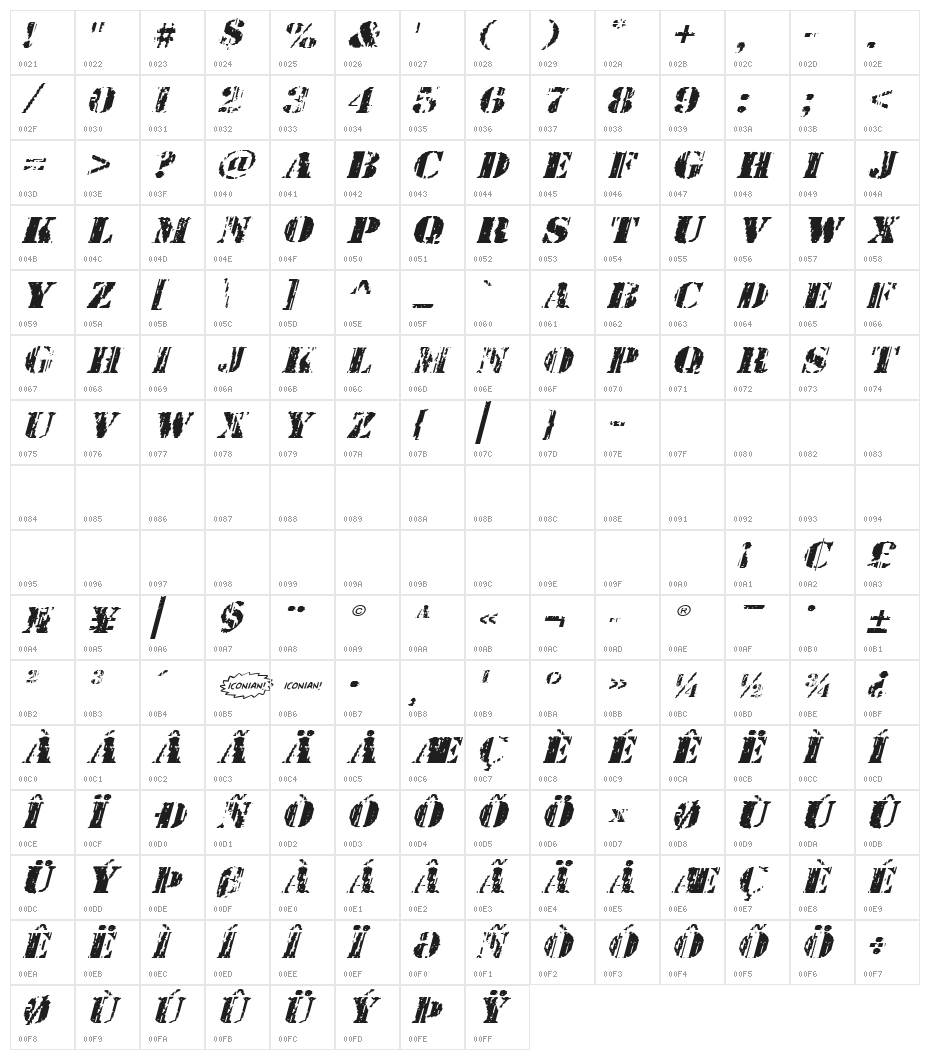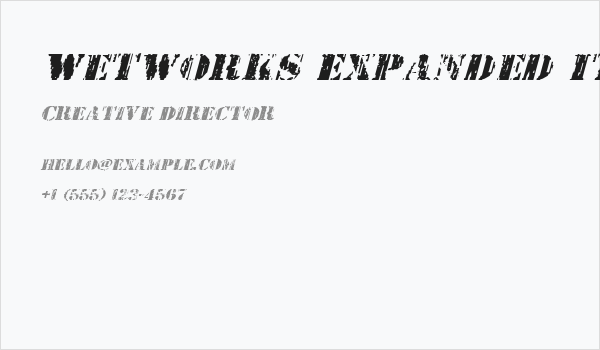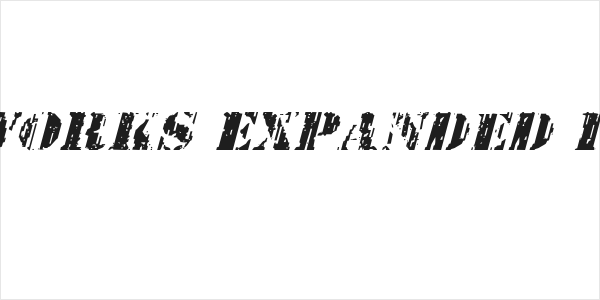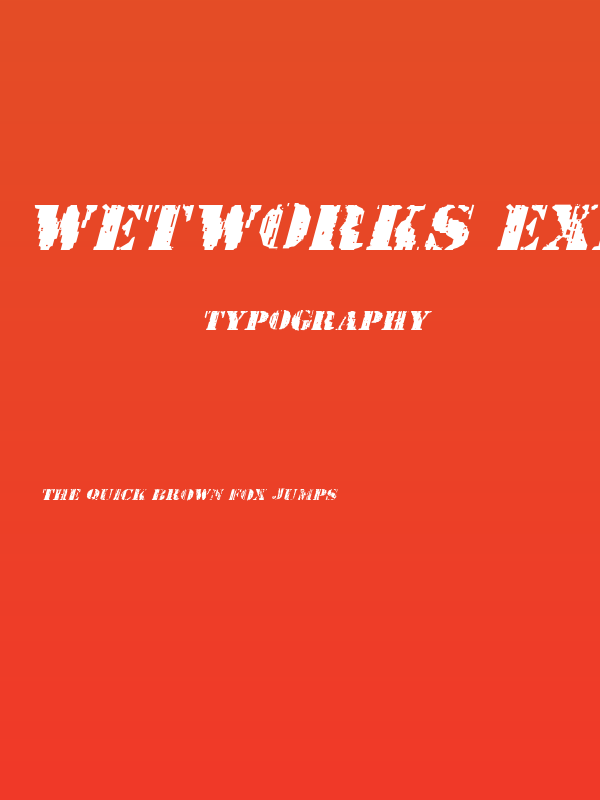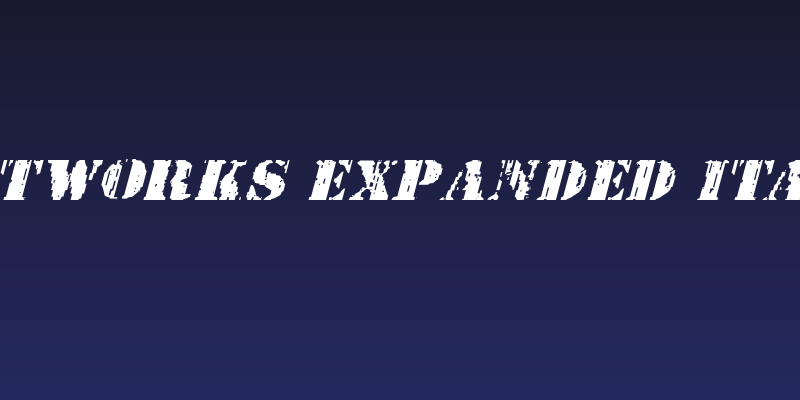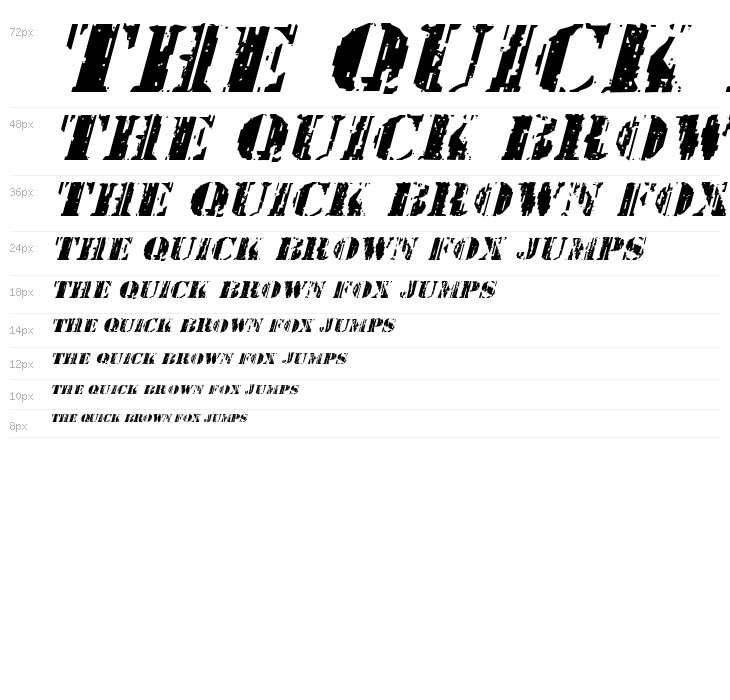
Wetworks Expanded Italic Font
Wetworks Expanded Italic Description
This font features a bold, distressed style with an expanded width and italic slant. The characters are heavily textured, giving them a rugged, weathered appearance that suggests a sense of movement and dynamism. The uppercase and lowercase letters maintain a consistent style, while the numbers and special characters complement the overall aesthetic. The font's unique look makes it stand out, ideal for projects requiring a strong visual impact.
| Proposed Projects | Ideal for posters, album covers, branding for edgy products, or any design needing a bold, impactful statement. |